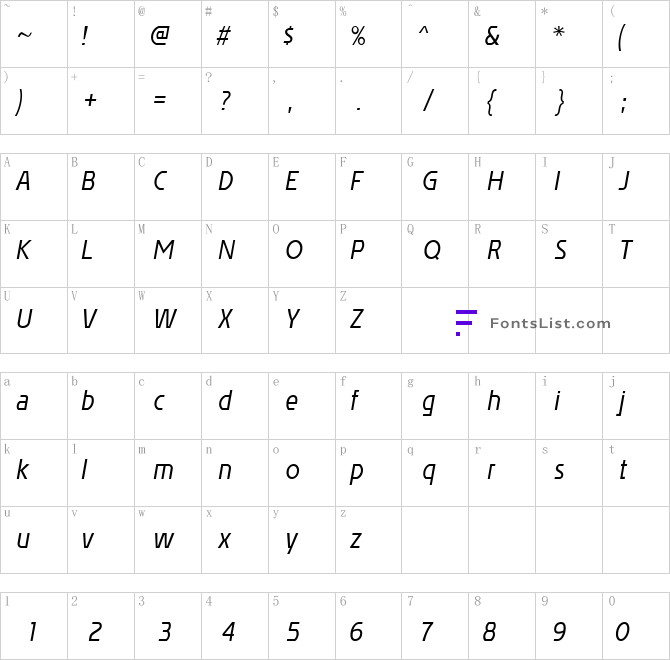
- Font Name:Affluent
Affluent-Italic.ttf is a very beautiful artistic font, Affluent-Italic.ttf is widely used in the design and printing of various books and pictures,Affluent-Italic.ttf has a strong visual impact,Affluent-Italic.ttf is a commonly used font in newspapers, magazines and books, and is used in posters, e-commerce Poster design, store design, logo design, font design and other fields.Affluent-Italic.